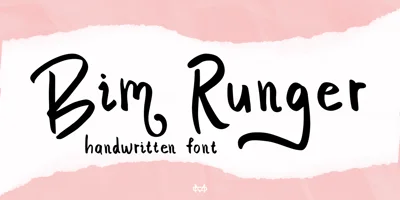
Bim Runger Font
The Bim Runger Font excels in various design applications including dynamic running club branding, energetic marathon event marketing, athletic fitness center communications, endurance sports promotions, running gear packaging, athletic training academy identities, competitive race event signage, fitness motivation materials, athletic performance tracking displays, and spirited running projects that demand runner energy and athletic sophistication.
What makes the Bim Runger Font exciting is its energetic embodiment of running culture and athletic endurance through letterforms that capture the essence of dynamic movement and the persistent determination of dedicated runners. This typeface demonstrates exceptional momentum through carefully crafted characters that suggest the rhythmic stride of experienced runners, the forward motion of athletic pursuit, and the enduring stamina that defines successful running culture and competitive athletic achievement. The font's running personality makes it perfect for fitness organizations and athletic brands seeking to communicate runner authenticity, endurance excellence, and the kind of persistent energy that creates inspiring athletic experiences through typography that literally runs with athletic determination.
The Bim Runger Font family typically includes dynamic weight variations that enhance the running aesthetic, featuring energetic styling options and extended character sets optimized for athletic communications and fitness applications. These family options often include runner-inspired alternates, athletic symbols, and endurance decorative elements that provide designers with comprehensive tools for creating authentically athletic typography that celebrates running culture while maintaining contemporary design appeal and fitness credibility.
Athletic professionals and running community organizations consistently select Bim Runger Font for projects requiring typography that communicates running authenticity and athletic sophistication. This typeface delivers exceptional performance in fitness marketing, athletic branding, and running communications where establishing endurance credibility and creating motivational atmosphere is essential for runner engagement. The font's athletic character makes it particularly effective for marathon and training applications. Download Bim Runger Font today to access this athletically dynamic typeface that transforms running communications with its energetic elegance and athletic sophistication, creating compelling fitness experiences that honor the magnificent dedication of running culture while celebrating the persistent determination that defines authentic athletic endurance and competitive running excellence.